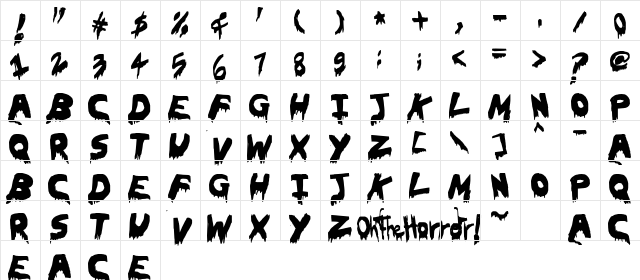
OhTheHorror Regular
Design Context for OhTheHorror Typeface
OhTheHorror leans into the macabre with letterforms designed to disturb and intrigue in equal measure.
Ideal for Halloween projects, horror film titles, haunted house signage, and dark editorial design.
Font Pairing: Pair with a clean neutral sans-serif for body copy to let OhTheHorror's character lead without overwhelming the composition.
Pro Tip: OhTheHorror works best as a headline or focal element. Pair it against plain, neutral body text to amplify the contrast.